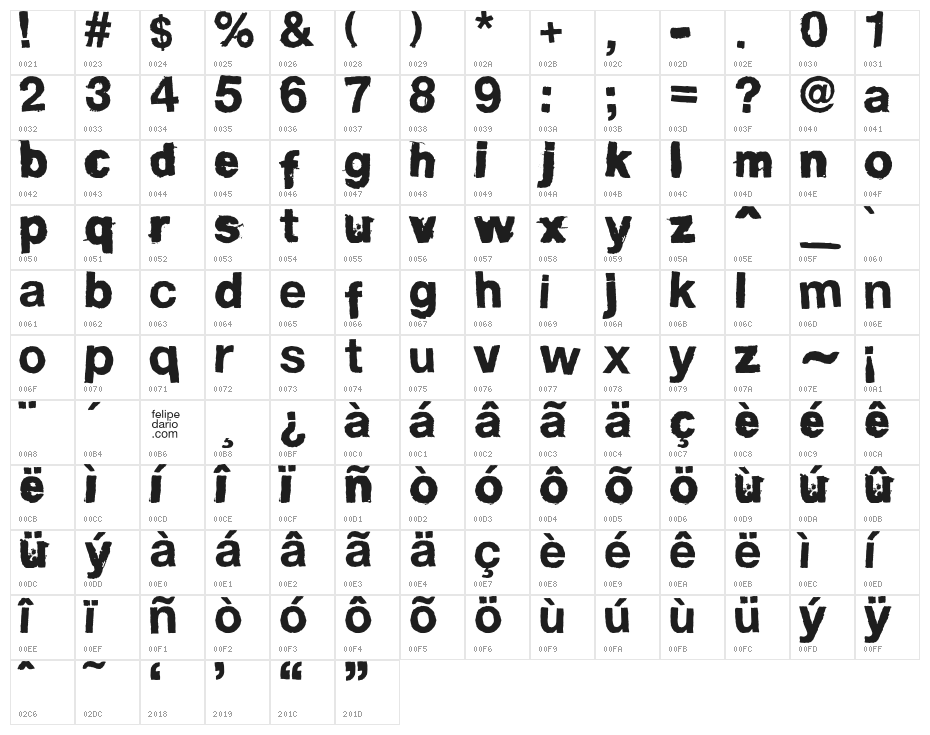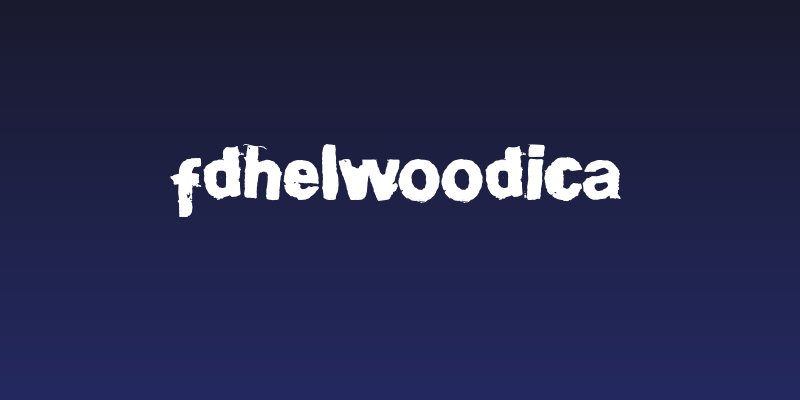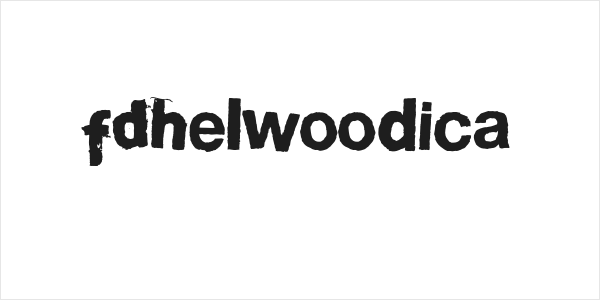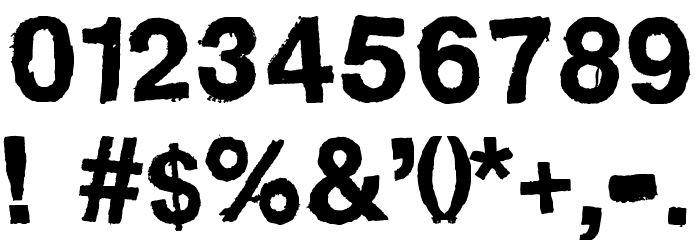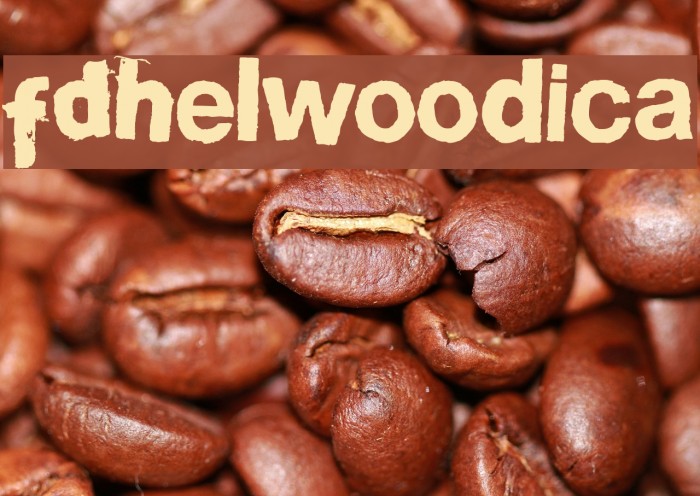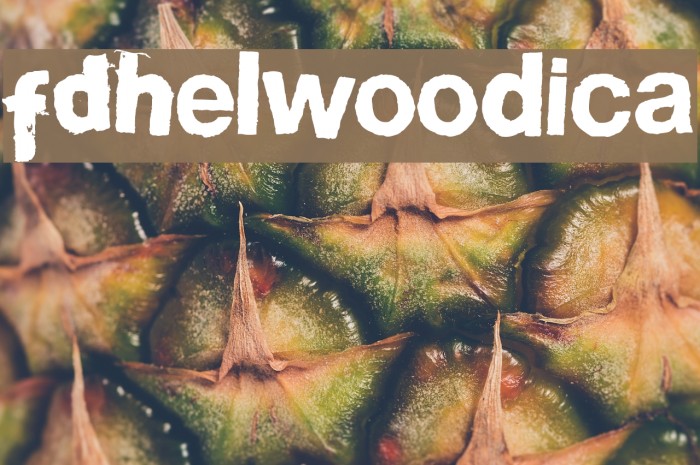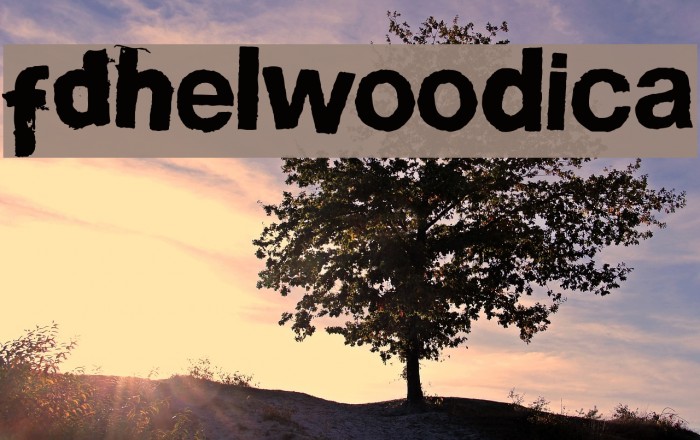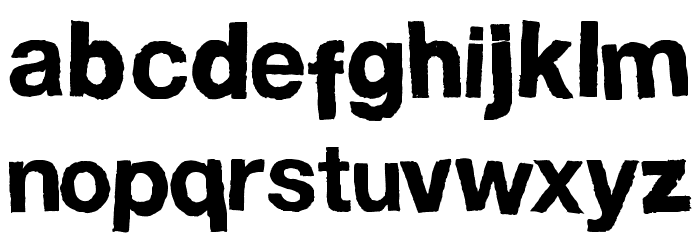
FDHelwoodica Font
FDHelwoodica Description
This font exhibits a bold and rugged style, characterized by its distressed and textured appearance. The letters have an uneven, hand-crafted look, giving them a unique and artistic flair. The strokes are thick and irregular, contributing to a sense of dynamism and energy. The font maintains a consistent weight throughout, with a slightly condensed width that enhances its bold presence. The character spacing is relatively tight, which complements the overall dense and impactful design. This font is ideal for projects that require a strong, eye-catching visual element, such as posters, album covers, or branding materials that aim to convey a sense of edginess and creativity.
| Proposed Projects | Posters, album covers, branding materials, artistic designs. |